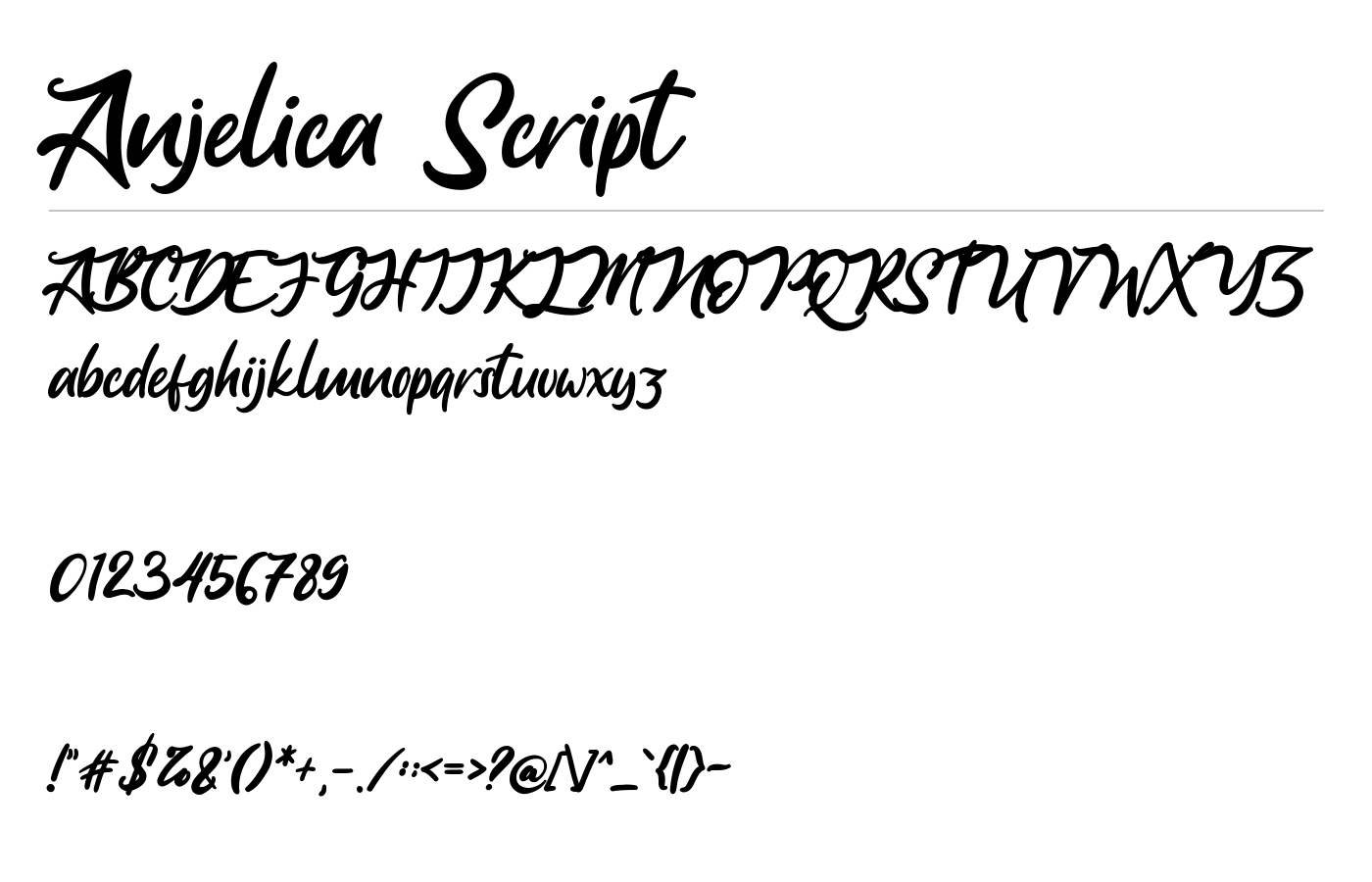
Anjelica Script is a lively and expressive script font with a smooth, flowing style that mimics natural handwriting. Its medium weight and slightly condensed letterforms give it a friendly yet elegant feel, making it perfect for branding, invitations, and creative projects that want to convey warmth and personality. The font’s playful curves and clear readability make it ideal for headlines and display use where a personal, artistic touch is desired.
Anjelica Script Font
About Anjelica Script Font